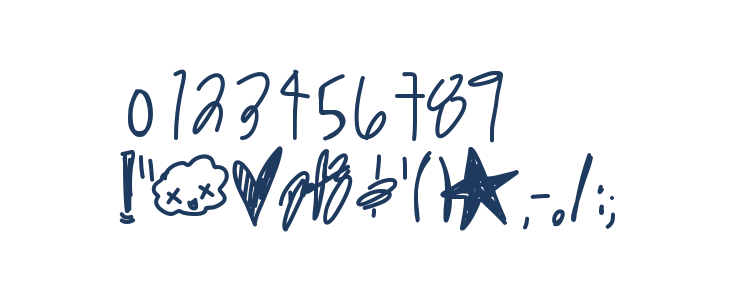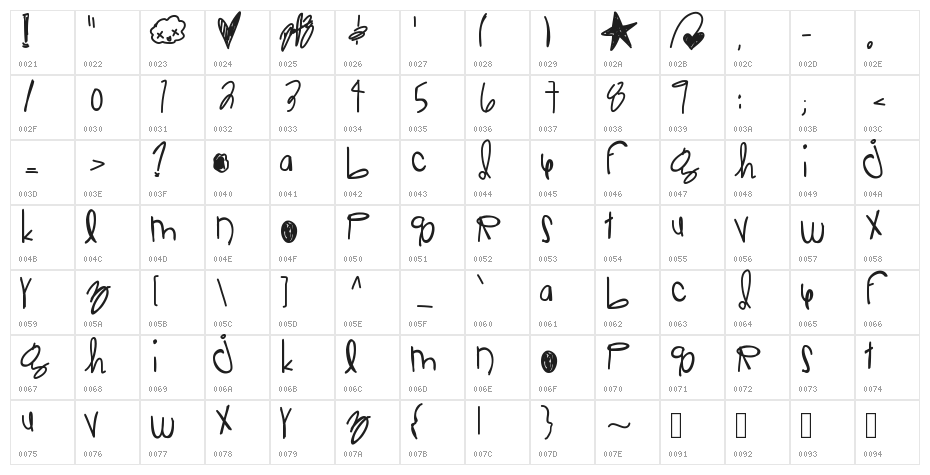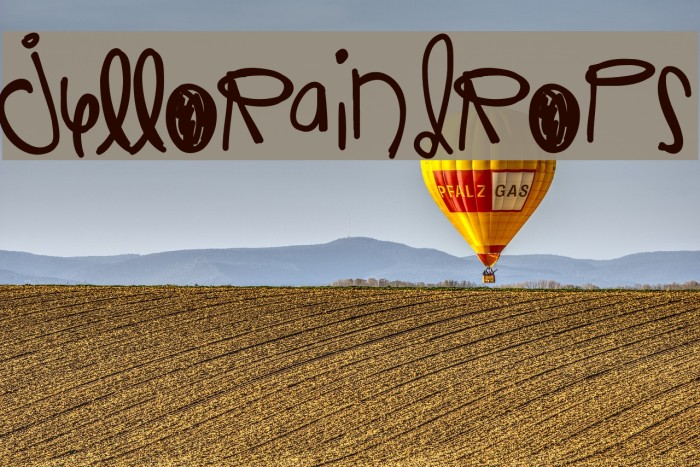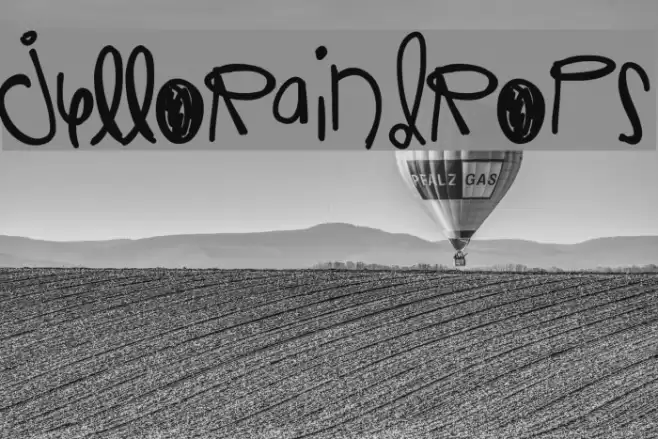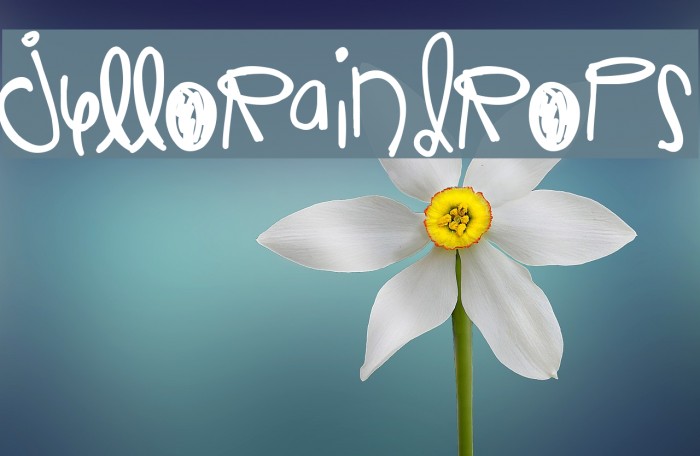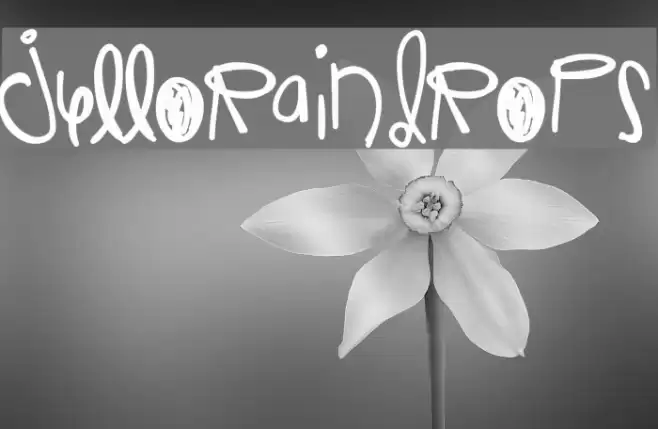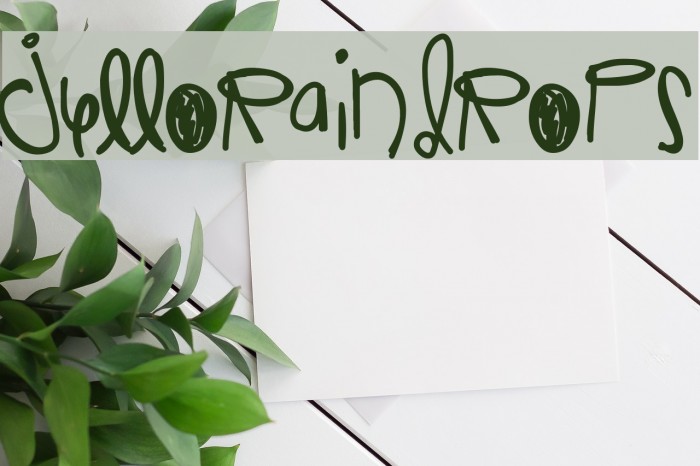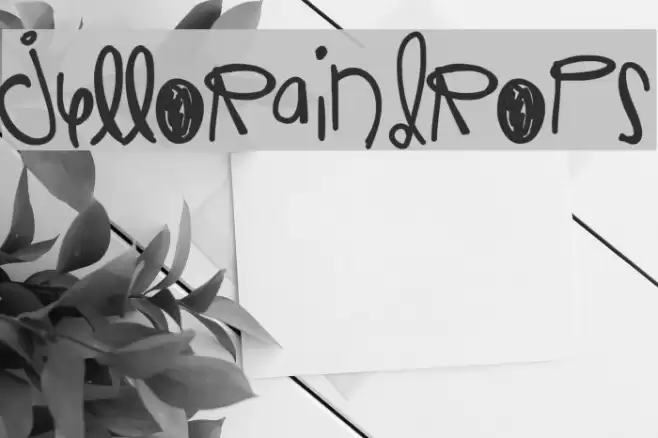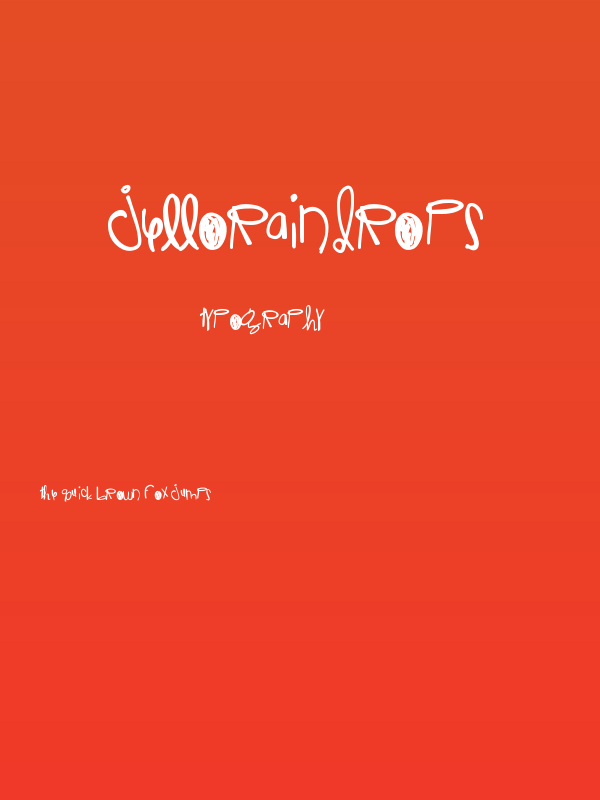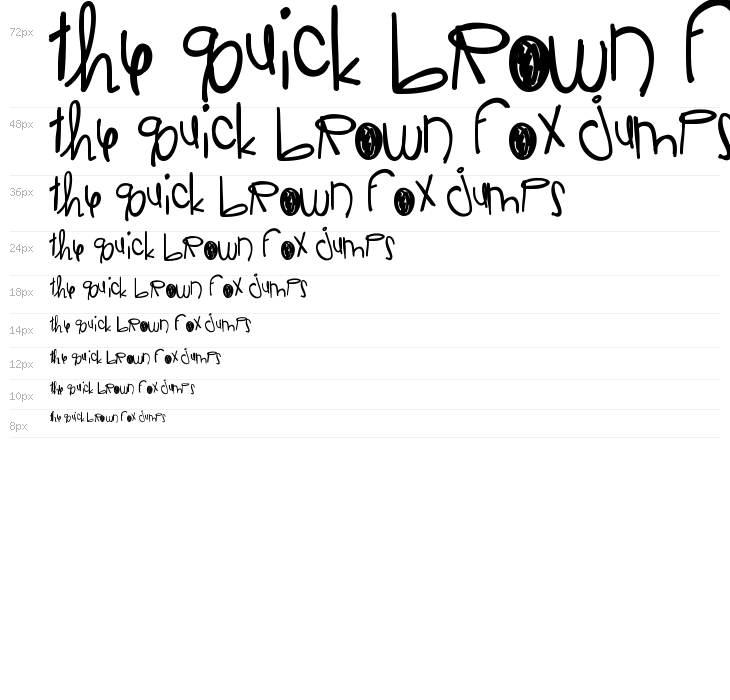
JelloRaindrops Font
JelloRaindrops Description
This playful and whimsical font features a handwritten style with a casual, free-flowing appearance. The letters are uneven and slightly tilted, giving it a lively and energetic feel. The strokes are bold and confident, with a consistent thickness throughout, creating a uniform look despite the irregular shapes. The characters are closely spaced, enhancing the dynamic and spontaneous nature of the design. This font includes a full set of uppercase and lowercase letters, numbers, and a variety of special characters, making it versatile for creative projects.
| Proposed Projects | Ideal for greeting cards, children's books, playful branding, and social media graphics. |